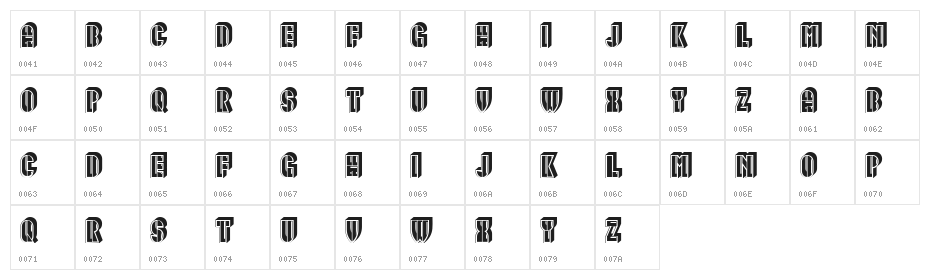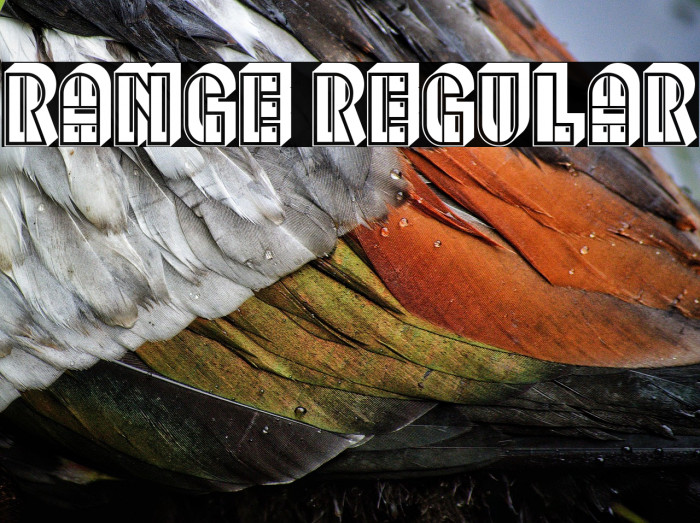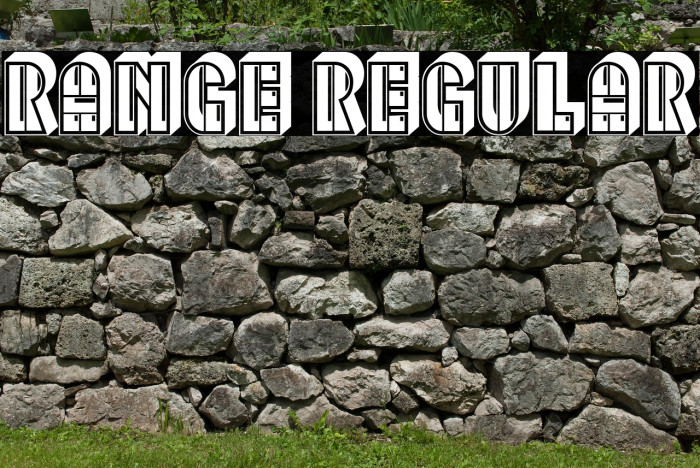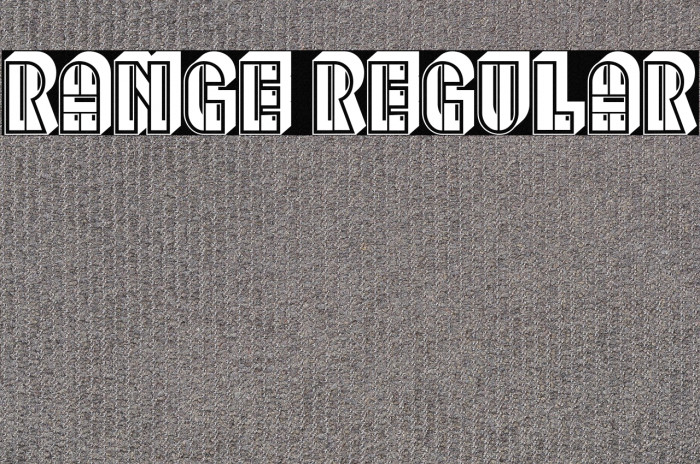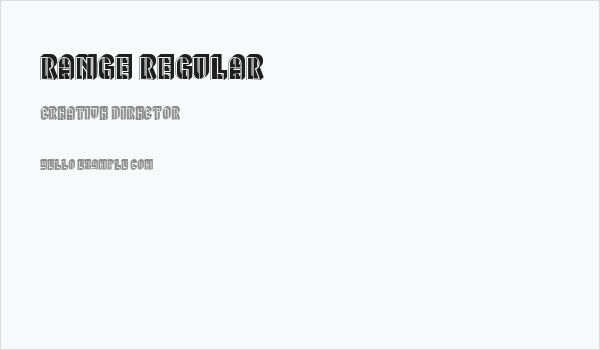
Range Regular Font
Range Regular Description
This font features a bold, decorative style with a three-dimensional effect created by its shadowed outline. The characters are uppercase only, with a blocky, geometric design that gives them a strong presence. The interior of each letter is filled with a pattern of horizontal lines, adding texture and depth. The overall look is modern and eye-catching, making it suitable for attention-grabbing headlines or titles. The font's unique design elements make it stand out, while the consistent line weight and spacing ensure readability.
| Overall Style | Modern, Decorative |
| Proposed Projects | Ideal for posters, logos, branding materials, and any project requiring a striking, modern typeface. |